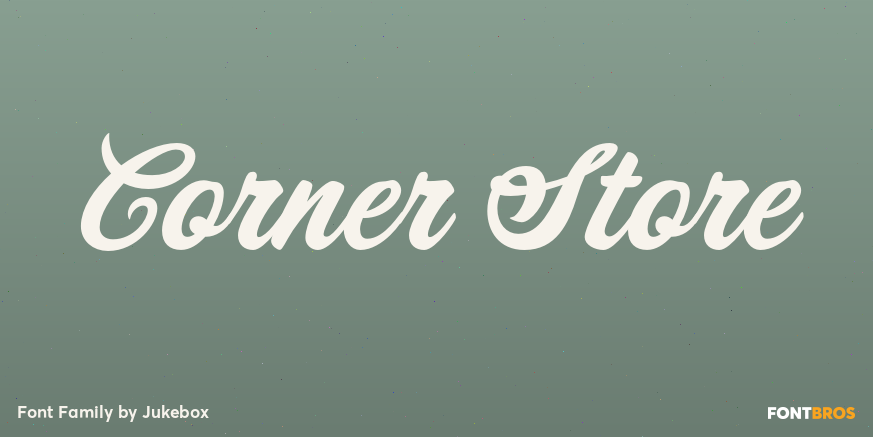
HomeFont BrosHistoricalCorner Store HistoricalScripts: Casual Corner Store FacebookXPinterestWhatsApp 1 of 1 About Corner Store is a high-quality OpenType font from Jukebox. Based on hand lettering seen on old fashioned store windows, Corner Store is a warm and nostalgic script typeface  DOWNLOAD ON FONT BROSThis font is sold and delivered by Font Bros. Font Canyon may earn a commission if you buy through this link. People also explored Hello Avelline Font Porschey Font Granbury Font Circus Font Friday Font Gdynia Holidays Christmas Font Moonstone Agnella Semi-Bold Font 477 0 TagsCorner Store Font Previous articleMinnesotaNext articleFleisch LEAVE A REPLY Cancel reply Comment: Please enter your comment! Name:* Please enter your name here Email:* You have entered an incorrect email address! Please enter your email address here Website: Save my name, email, and website in this browser for the next time I comment. Personal Use Free Talking on Personal Use Free Read more about this font Sunshine Tropical Font Personal Use Free Read more about this font Coffete Personal Use Free Read more about this font Tahu Font Personal Use Free Read more about this font BLOG How to Install and Use Fonts on Windows, macOS, and Web Projects How to Install and Use Fonts on Windows, macOS, and Web Projects Fonts are a crucial part of design and branding. Whether you’re designing a... Free vs Paid Fonts: Why Investing in Premium Fonts Is Worth It The 10 Best Handwriting Fonts to Add Personality to Your Designs Fonts That Capture the Spirit of New York City